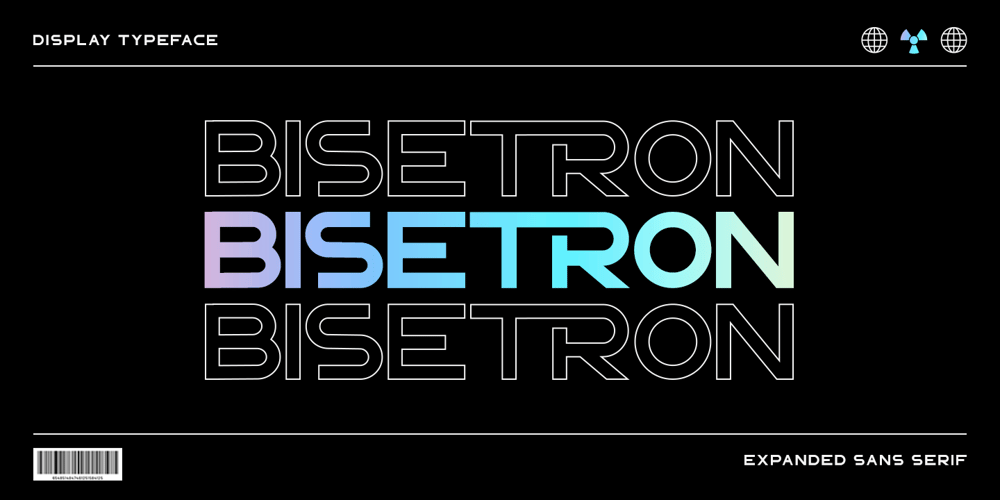
Bisetron Font Family was designed by Hayinah and published by Rockboys Studio. Bisetron contains 1 styles and family package options. Bisetron is a modern and elegant font that strikes a balance between sleek sophistication and contemporary style. Its design features clean lines and refined curves, giving it a versatile and professional look. The font’s geometric precision and balanced proportions contribute to its readability, while subtle stylistic touches add a sense of luxury and modernity. Ideal for branding, editorial design, and high-end marketing materials, Bisetron is perfect for projects that require a touch of elegance with a modern twist. Its versatility ensures it works well in both display and text settings, making it a go-to choice for a wide range of design applications.